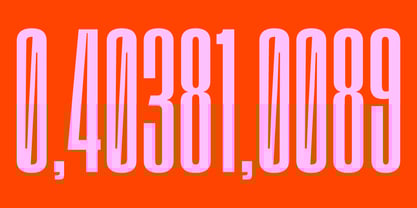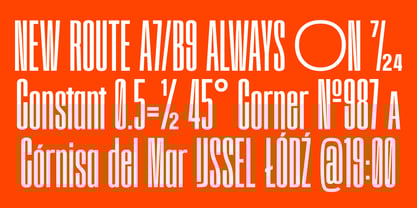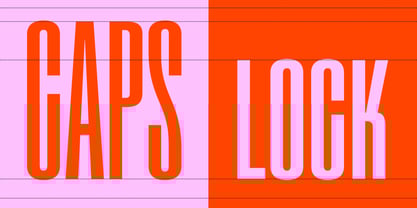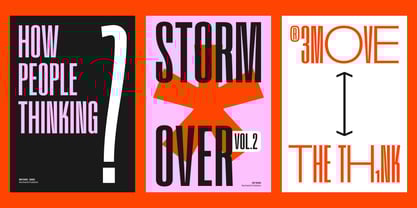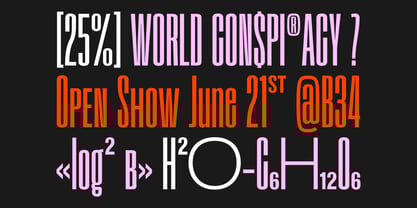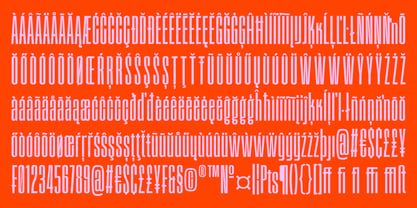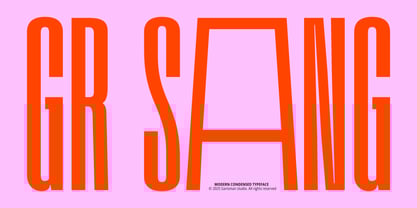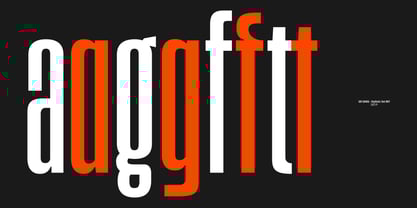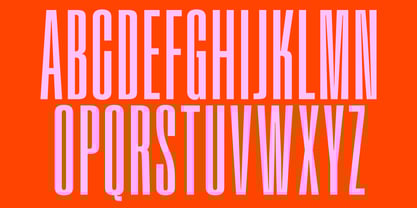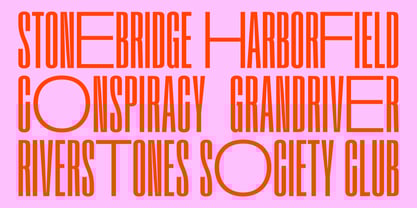
GR Sang
The GR Sang Font Family was designed by Risman Ginarwan and published by Garisman Studio. GR Sang contains 1 styles. More about this family
GR Sang is a modern condensed sans serif display typeface designed for sharp headlines and compact titles. With one regular style, it delivers tall, narrow letterforms that keep text clean and readable when space is tight, making it ideal for headlines, titles, logos, posters, and signage. The design stays simple and contemporary, with a focused vertical rhythm that suits editorial layouts, branding systems, and digital interfaces. GR Sang is powered by an extensive OpenType feature set: Small Capitals from Capitals, Contextual Alternates, Denominators, Fractions, Ordinals, Stylistic Alternates, Scientific Inferiors, Stylistic Sets, Subscript, Superscript, and a Slashed Zero, giving you precise control over numbers, technical details, and display typography. With multilingual support for 90 languages, GR Sang is ready for global projects that demand efficient, professional condensed sans serif headlines.